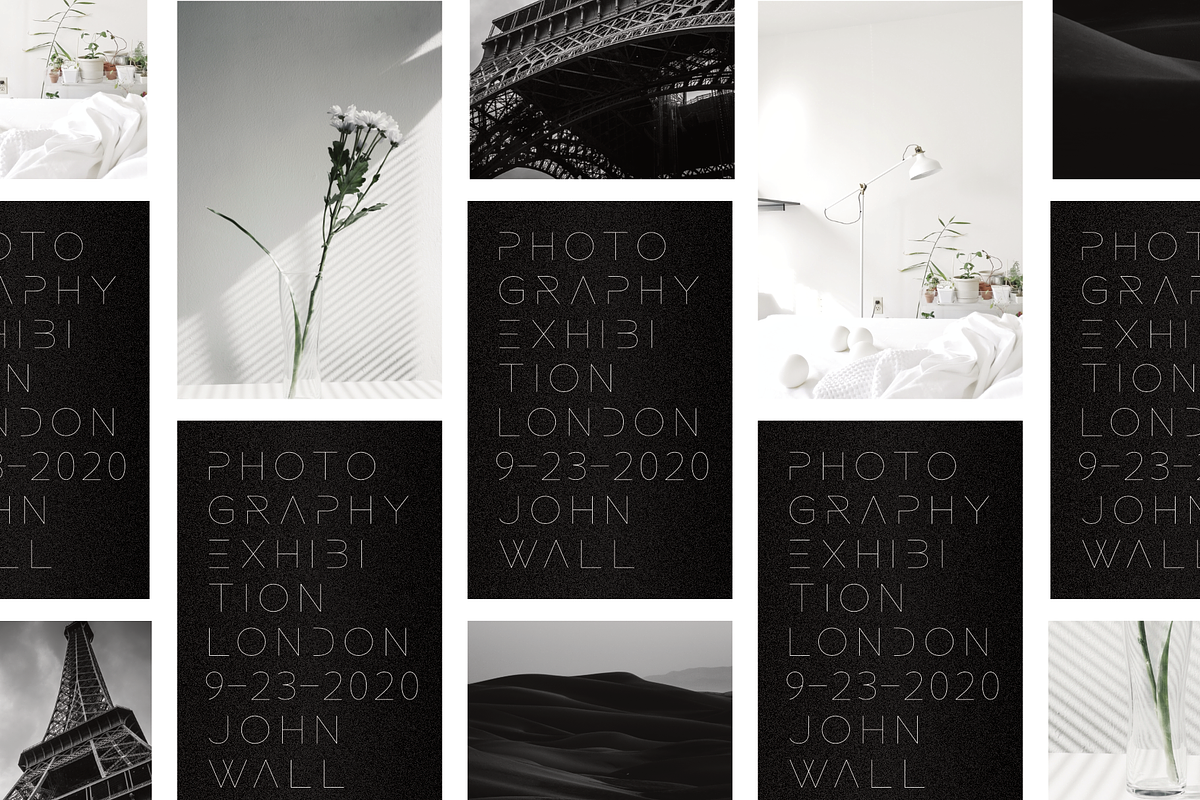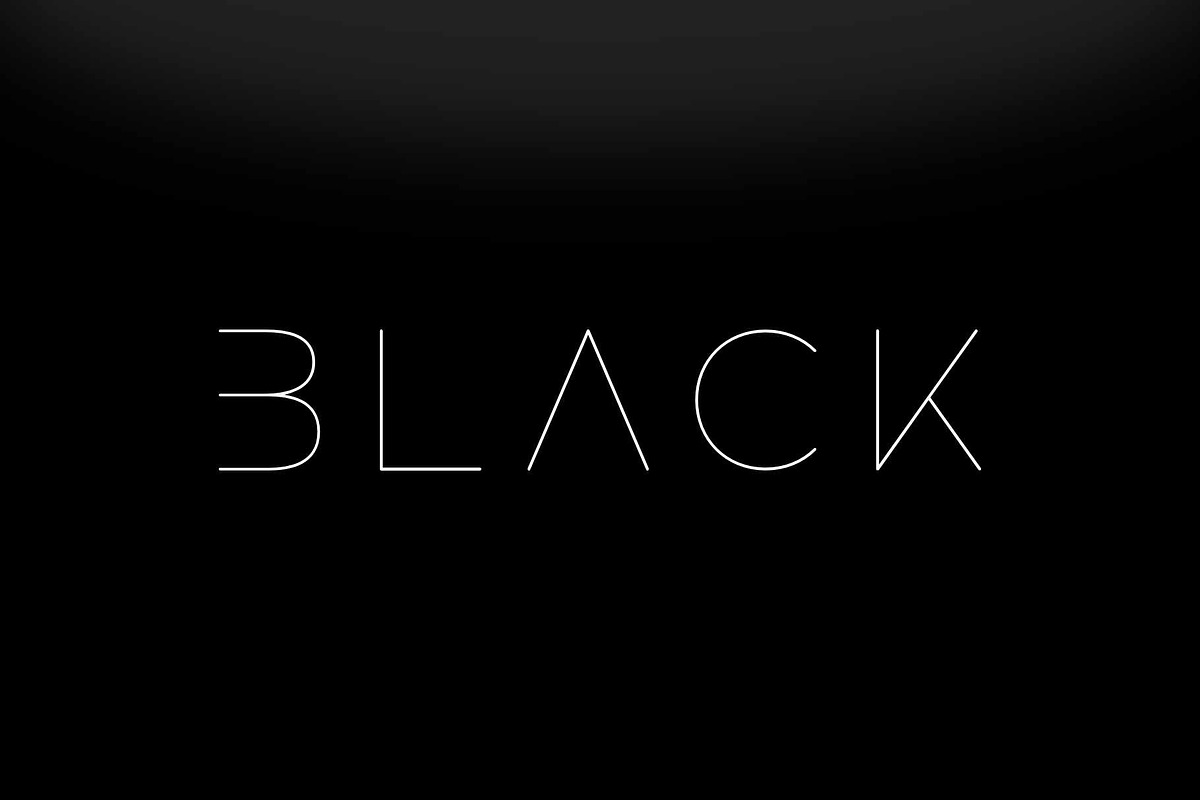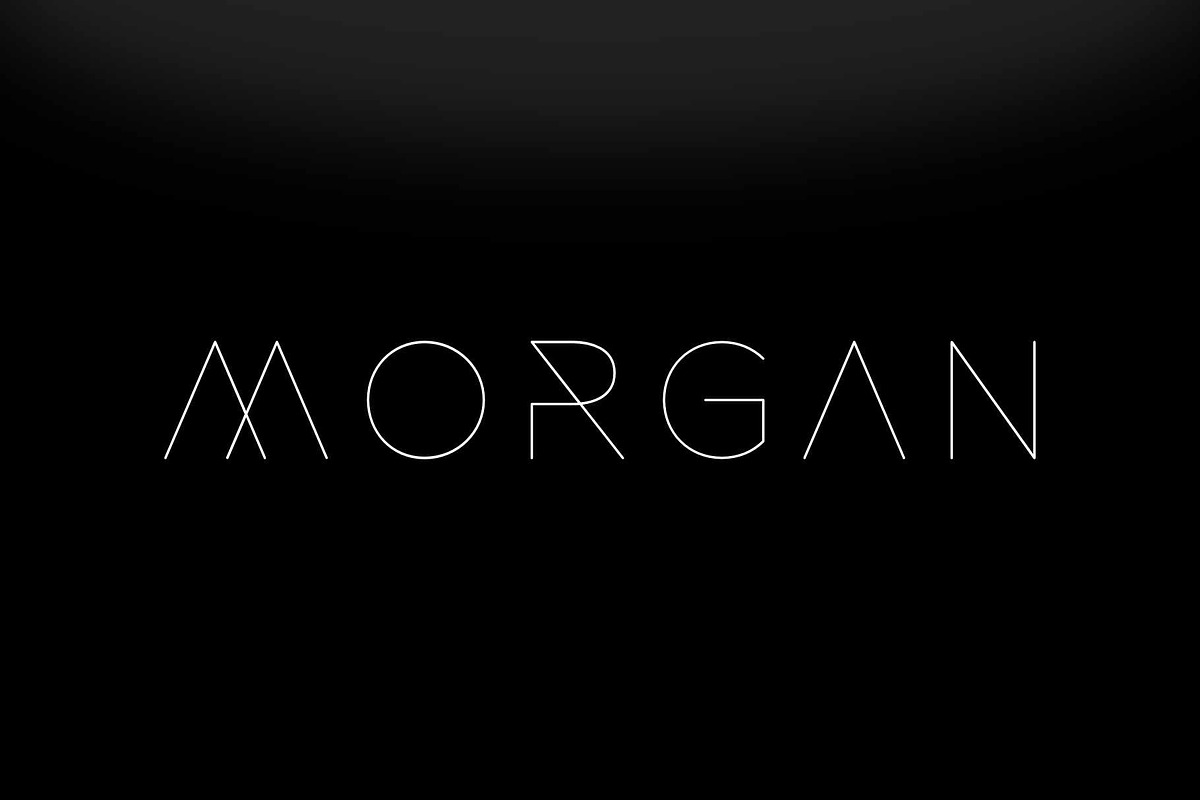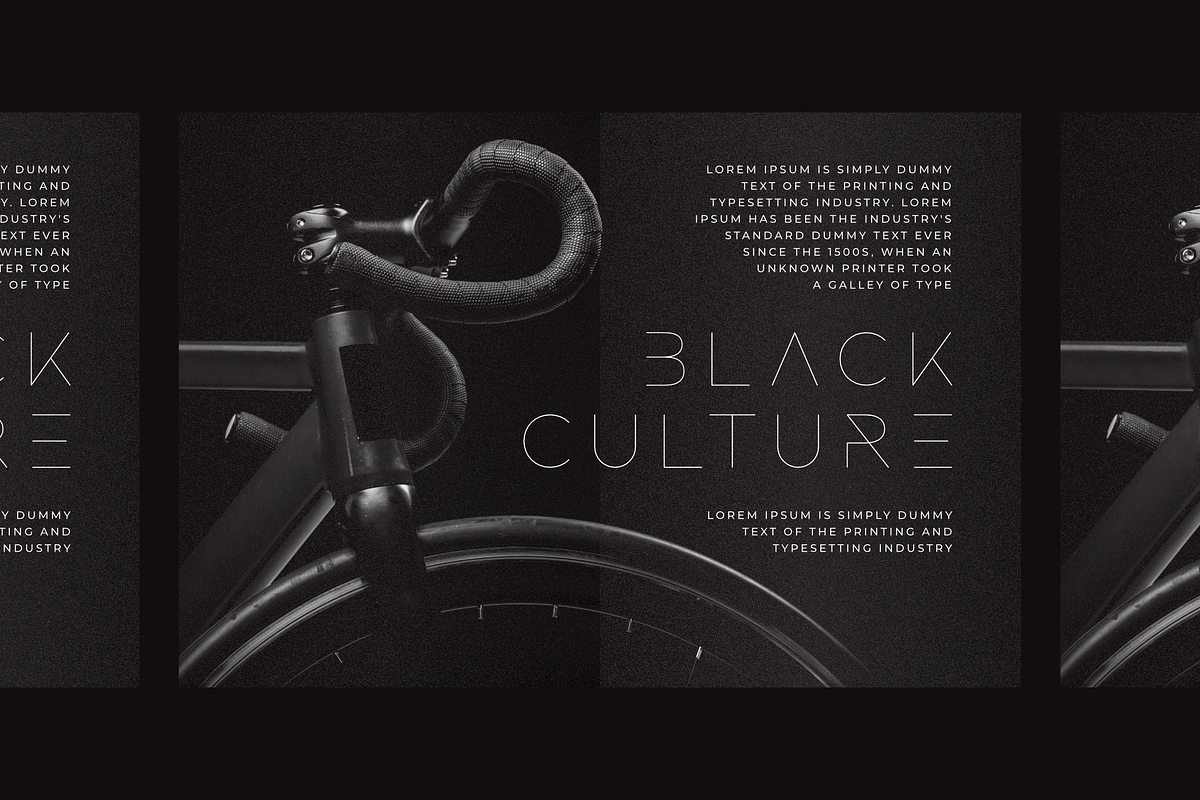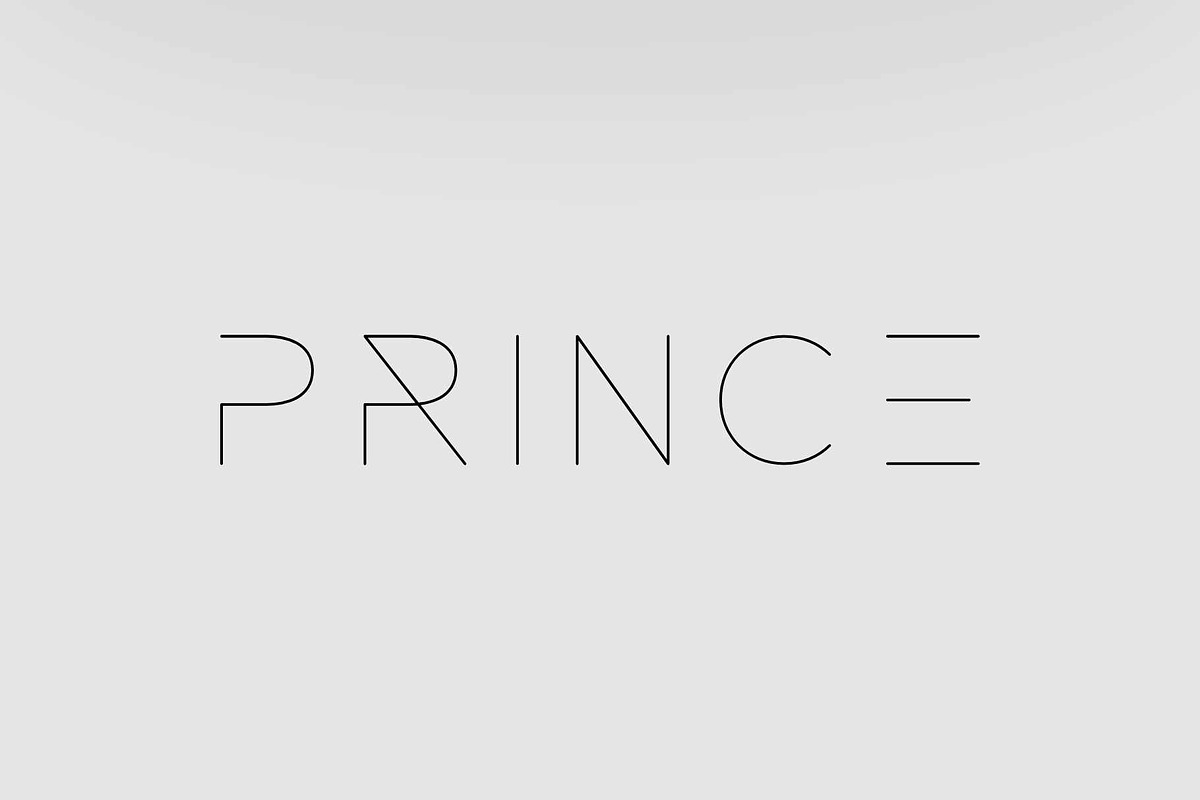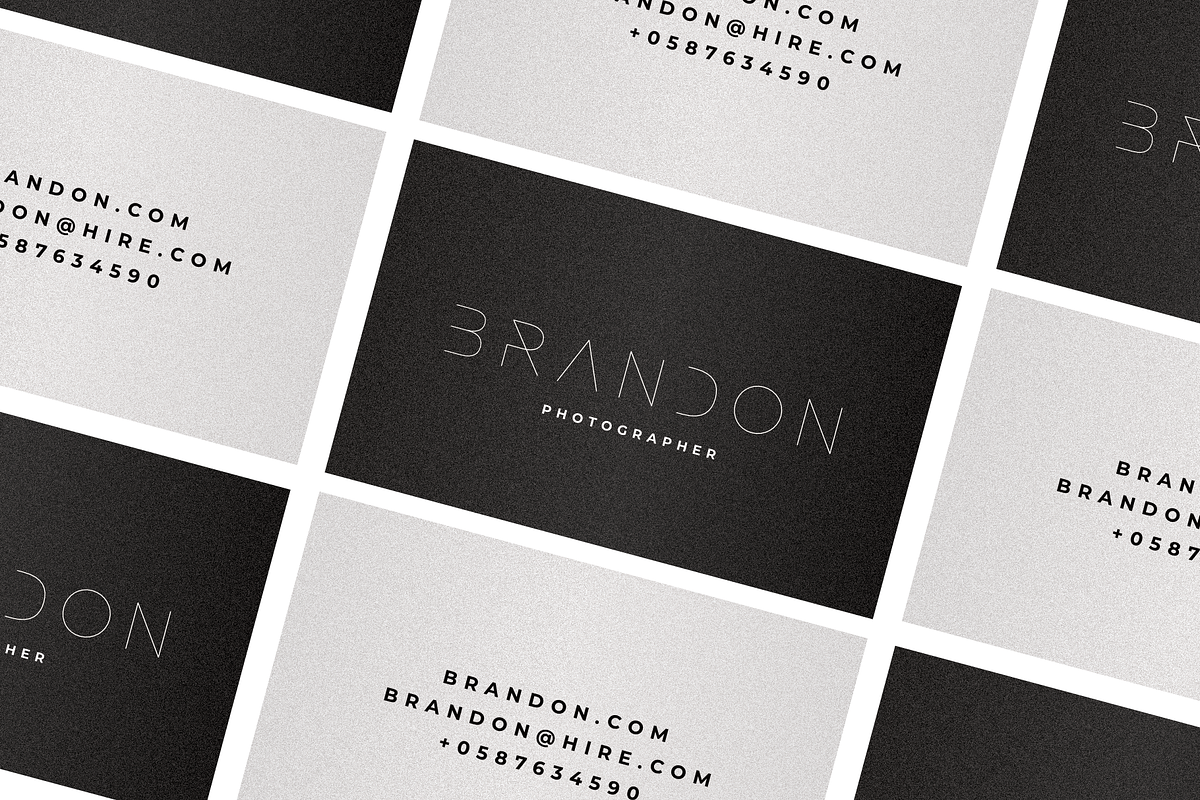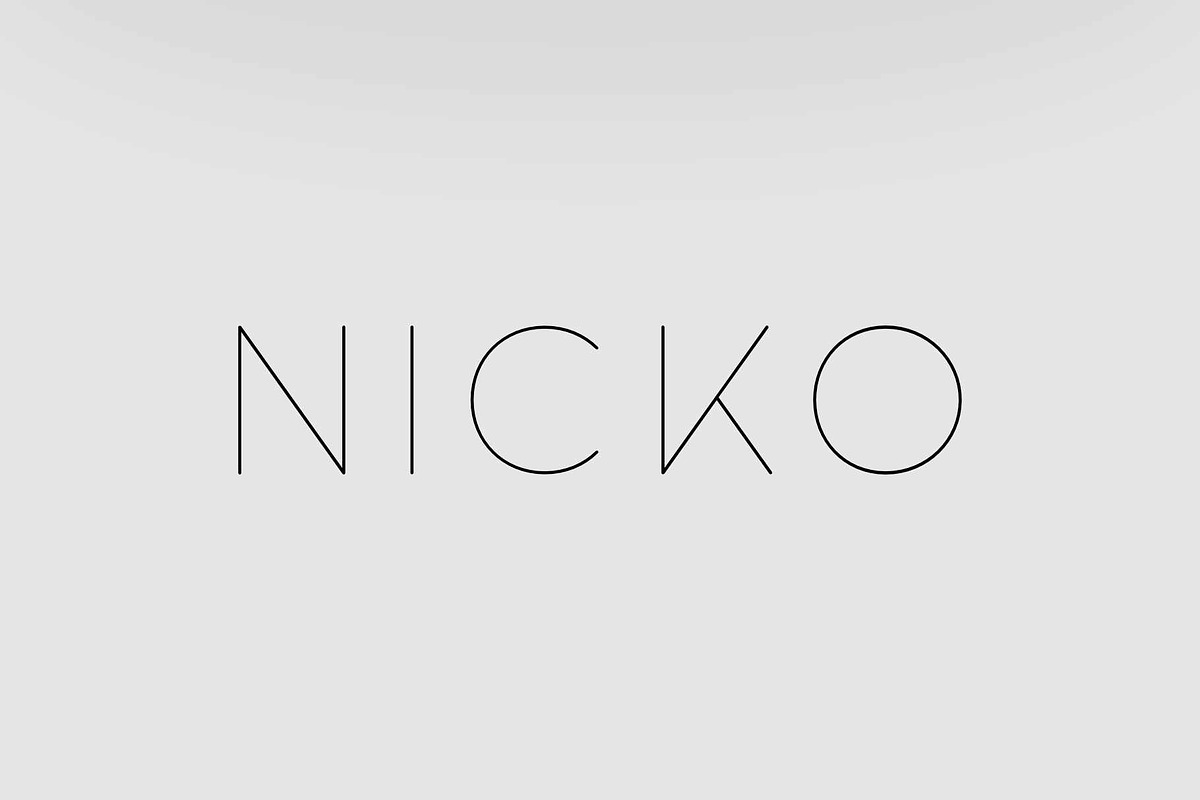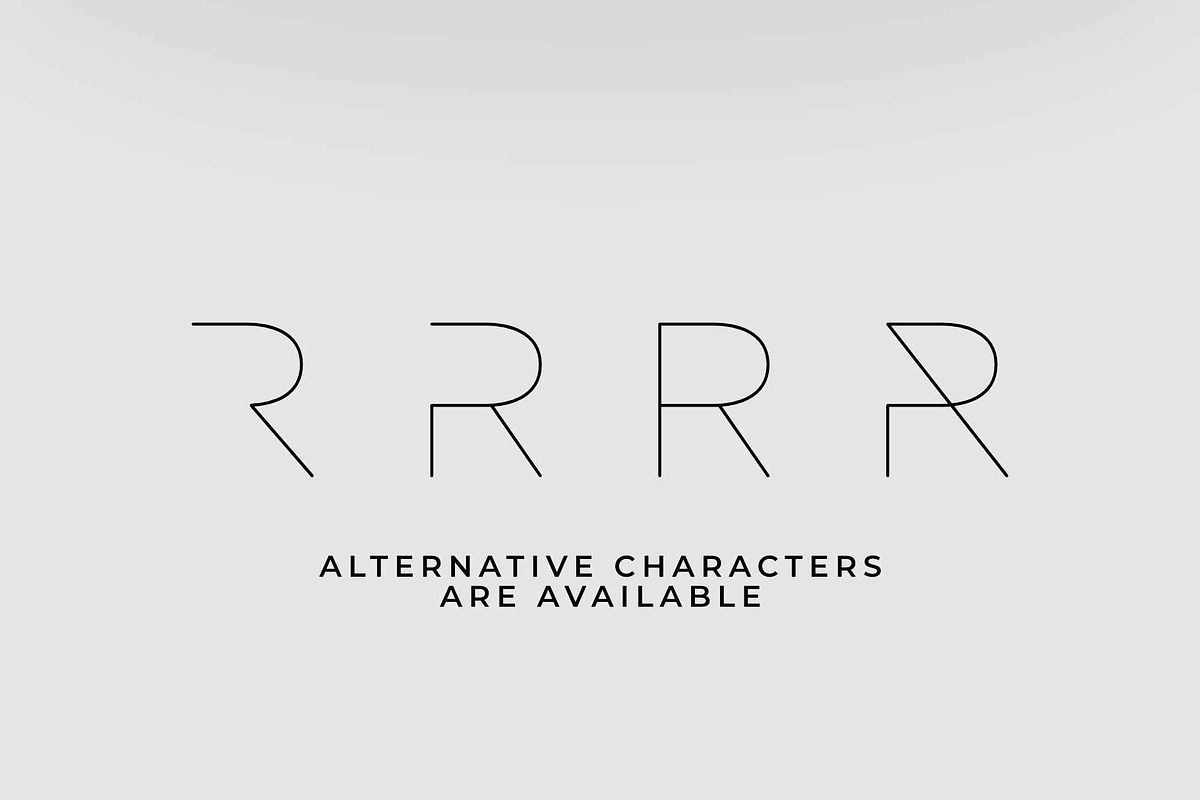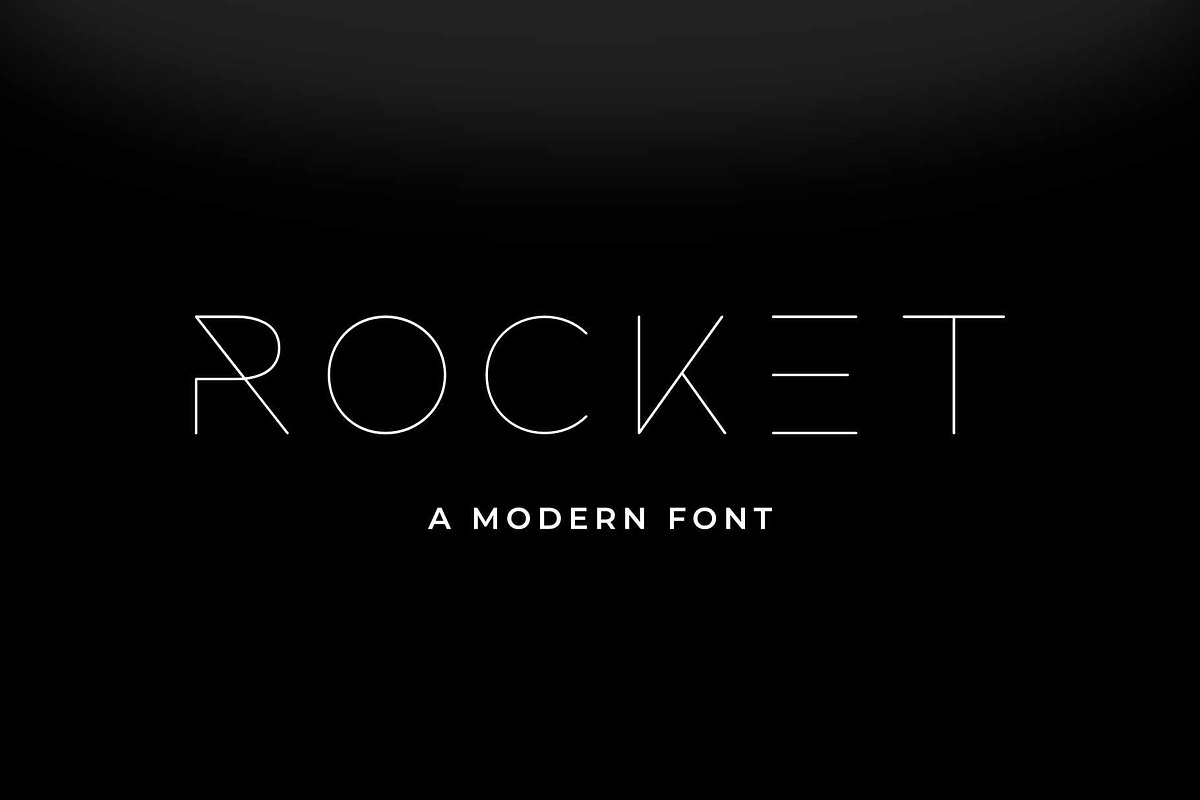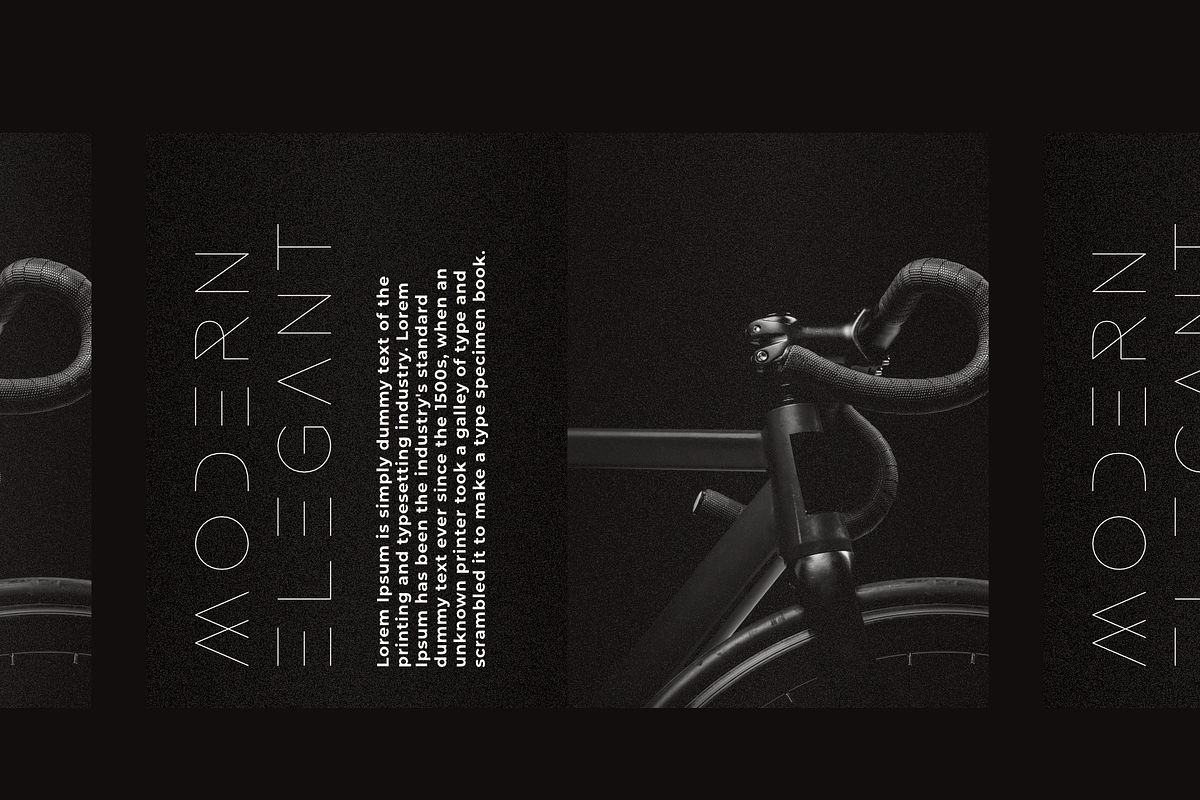
Rocket Modern Logo Tech Font
Rocket Wildness is a modern, elegant tech font designed for forward-thinking brands and creative minds. Blending futuristic style with minimal geometric precision, this typeface brings a bold yet clean look to any logo, brand, or design. Whether you're building the future of engineering, crafting high-end fashion branding, or launching the next big tech innovation, Rocket Wildness delivers sharp, technical vibes with a touch of vintage luxury.
With its sans serif structure and sleek curves, this technology-inspired font fits perfectly in modern branding, logo tech, and creative design projects that demand both style and sophistication. It’s not just a font—it’s a tool for technical storytelling, ideal for everything from engineering firms to futuristic startups.
Get ready to power up your branding with Rocket Wildness—a clean, bold, and innovative typeface built for the next generation.
Featrues:
- Stylistic Set 01
- Stylistic Set 02
- Stylistic Set 03
- Stylistic Set 04